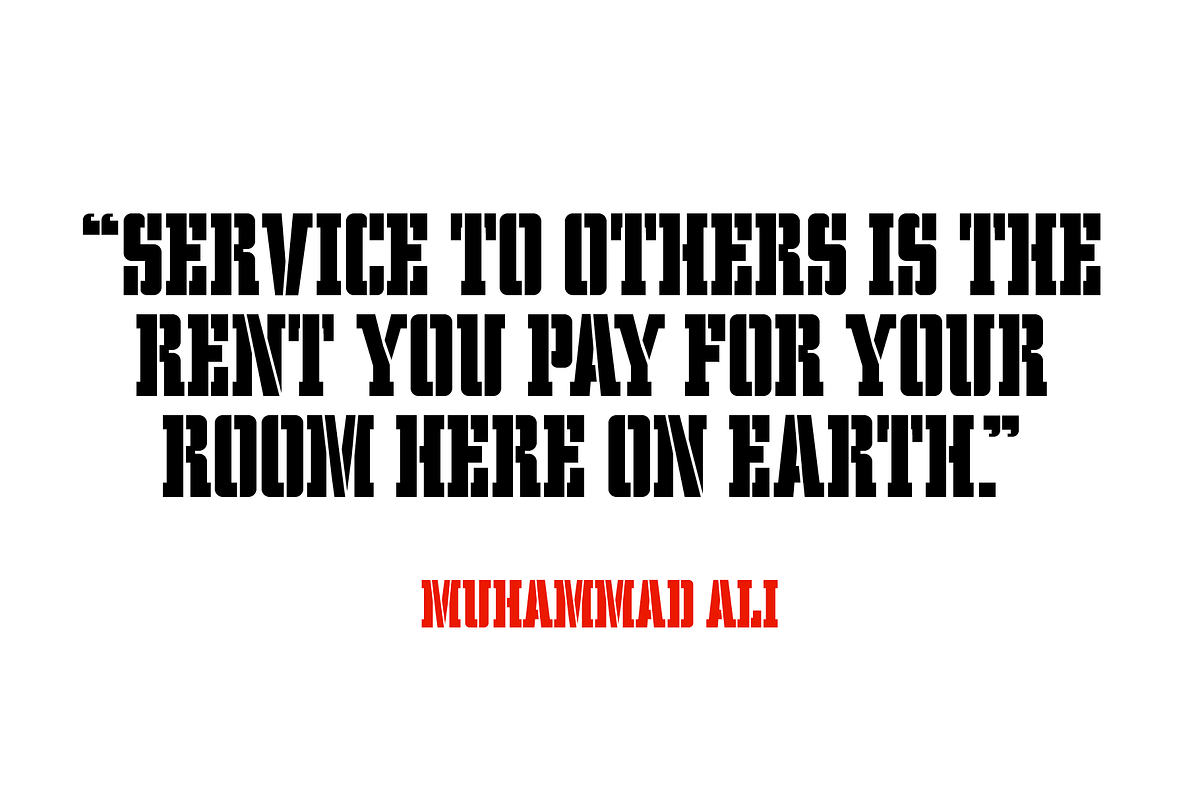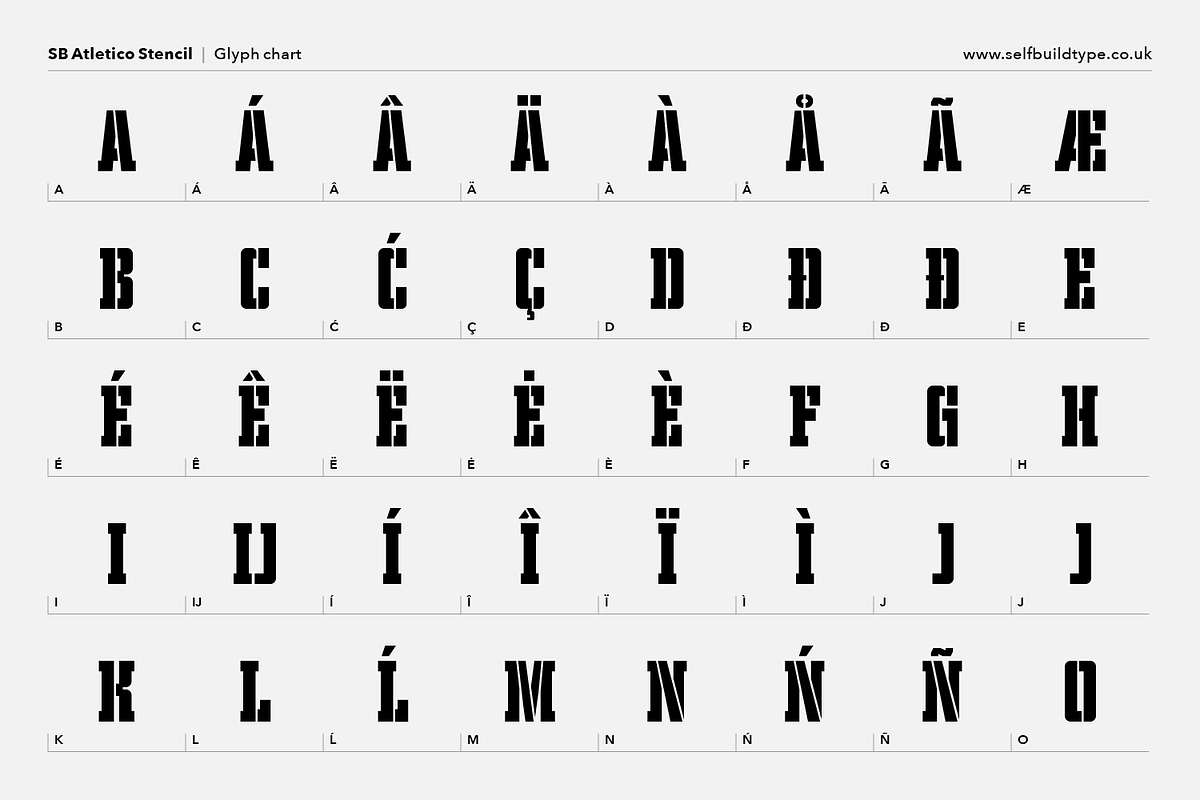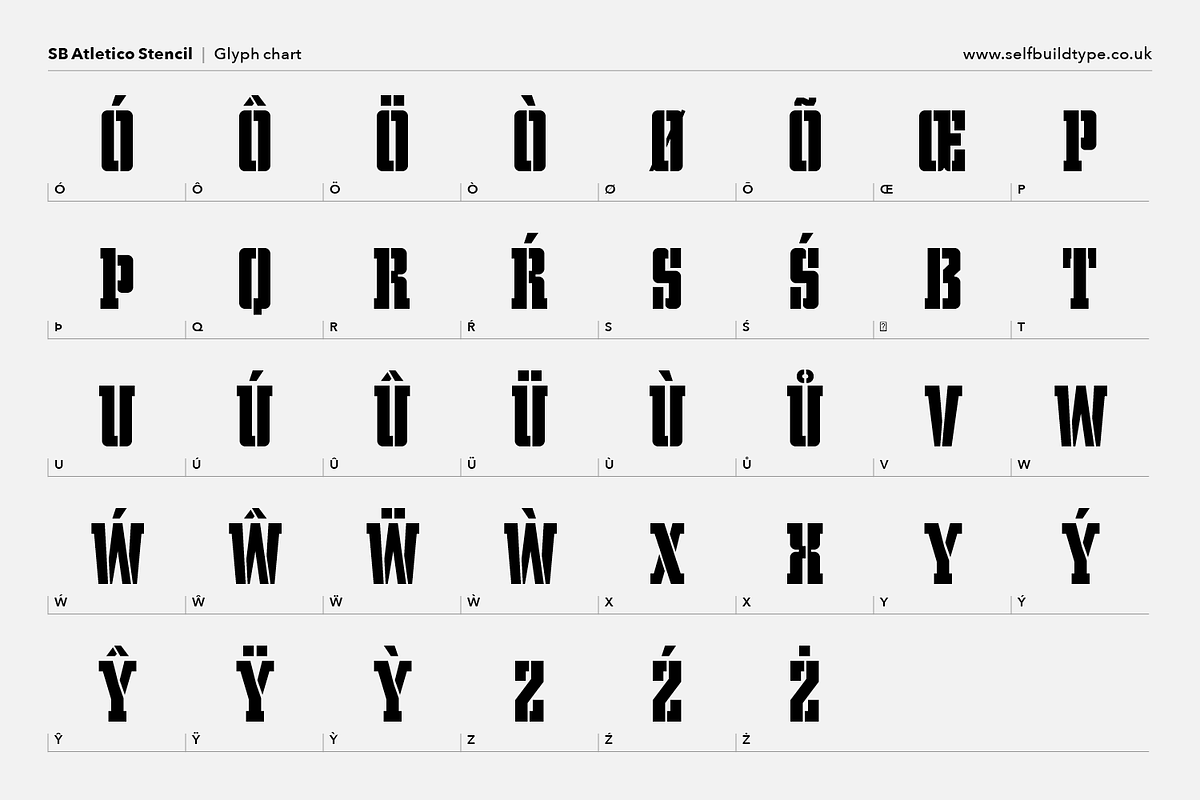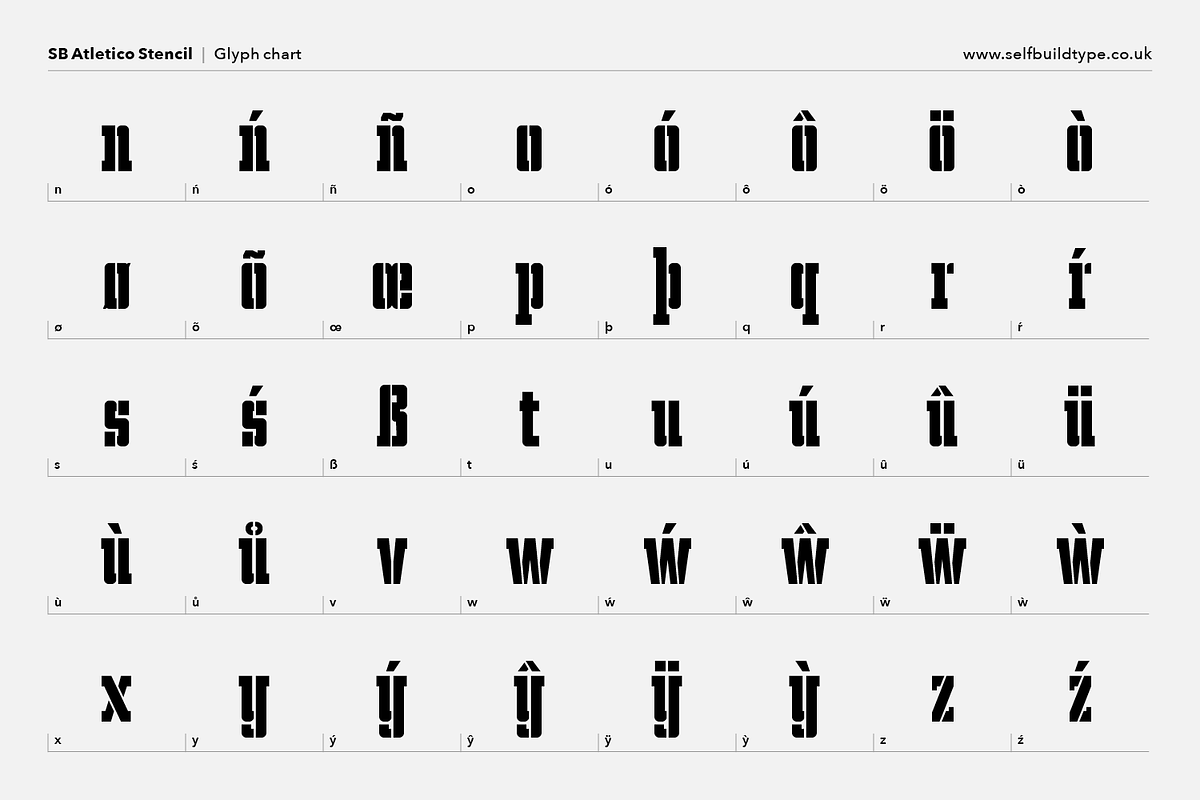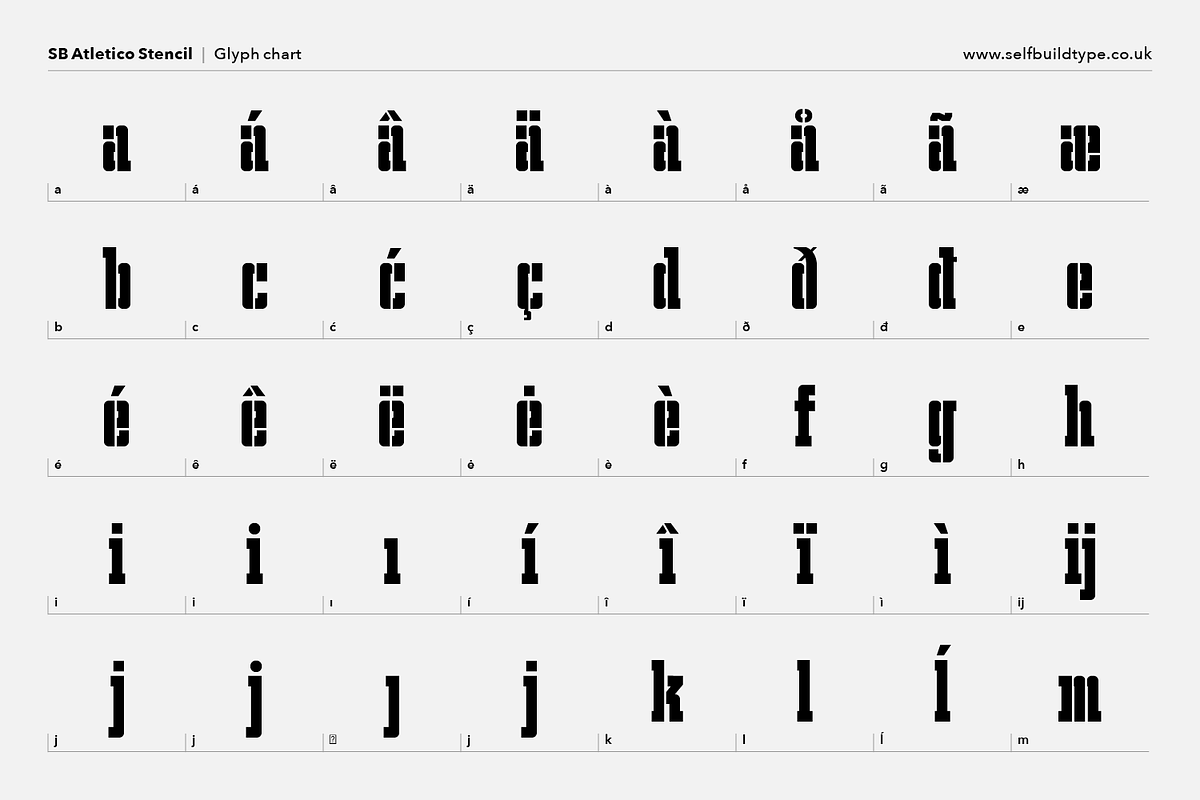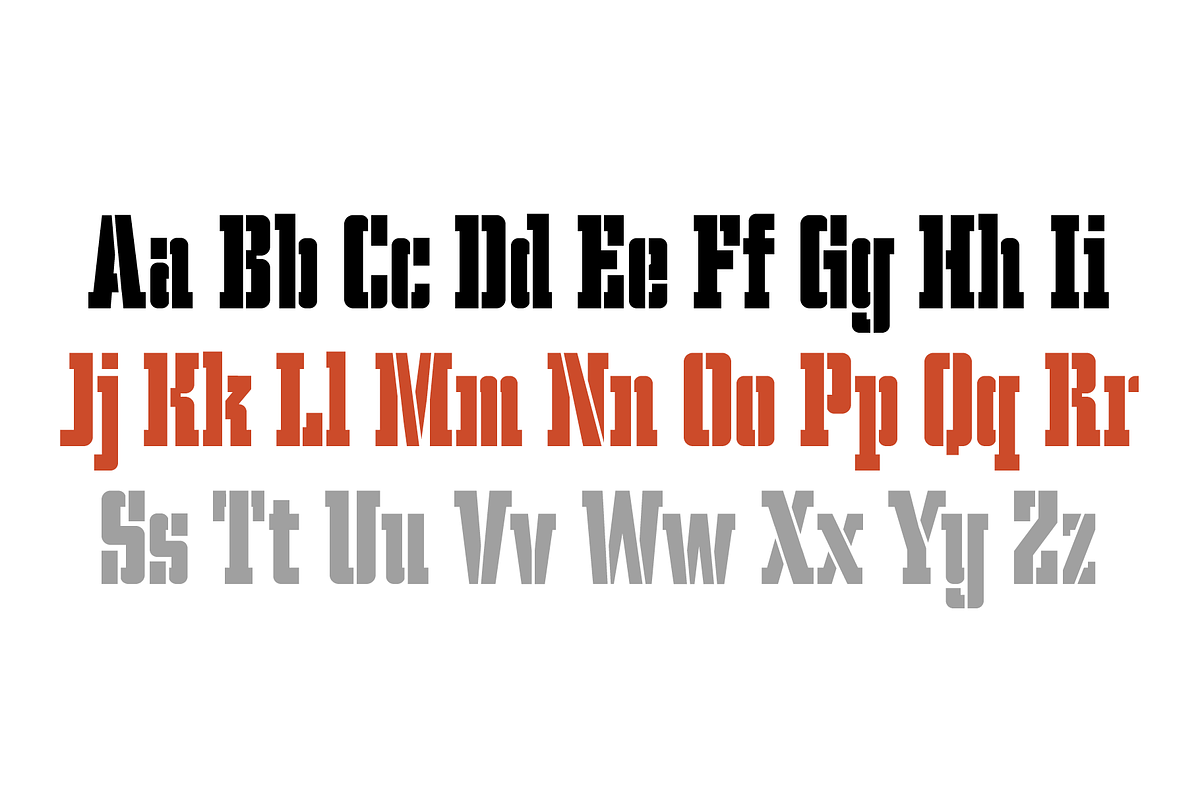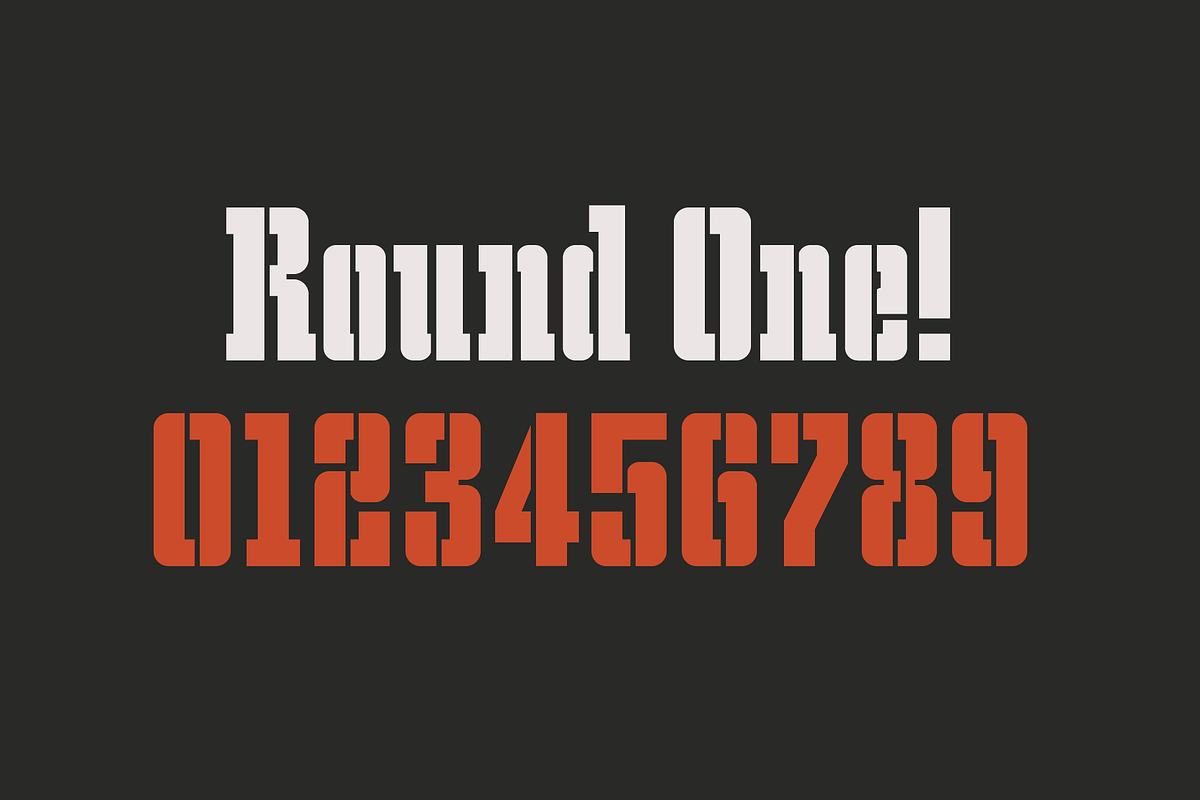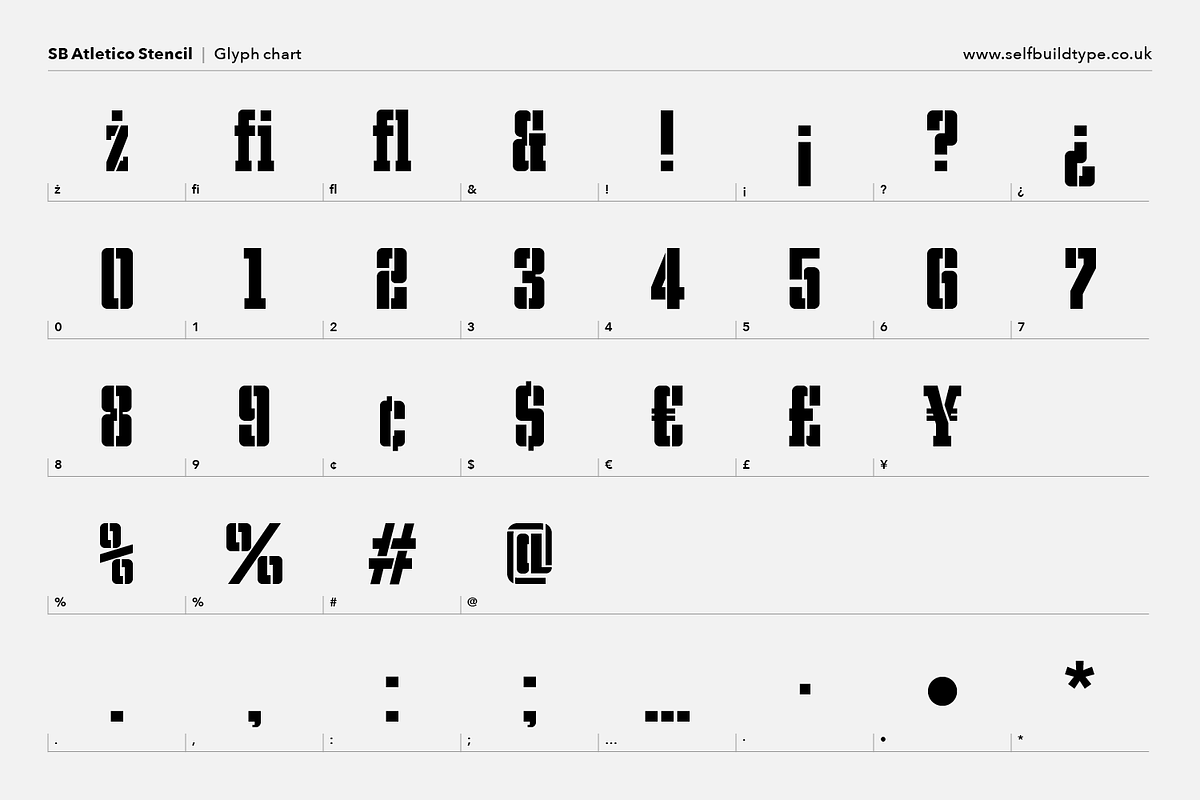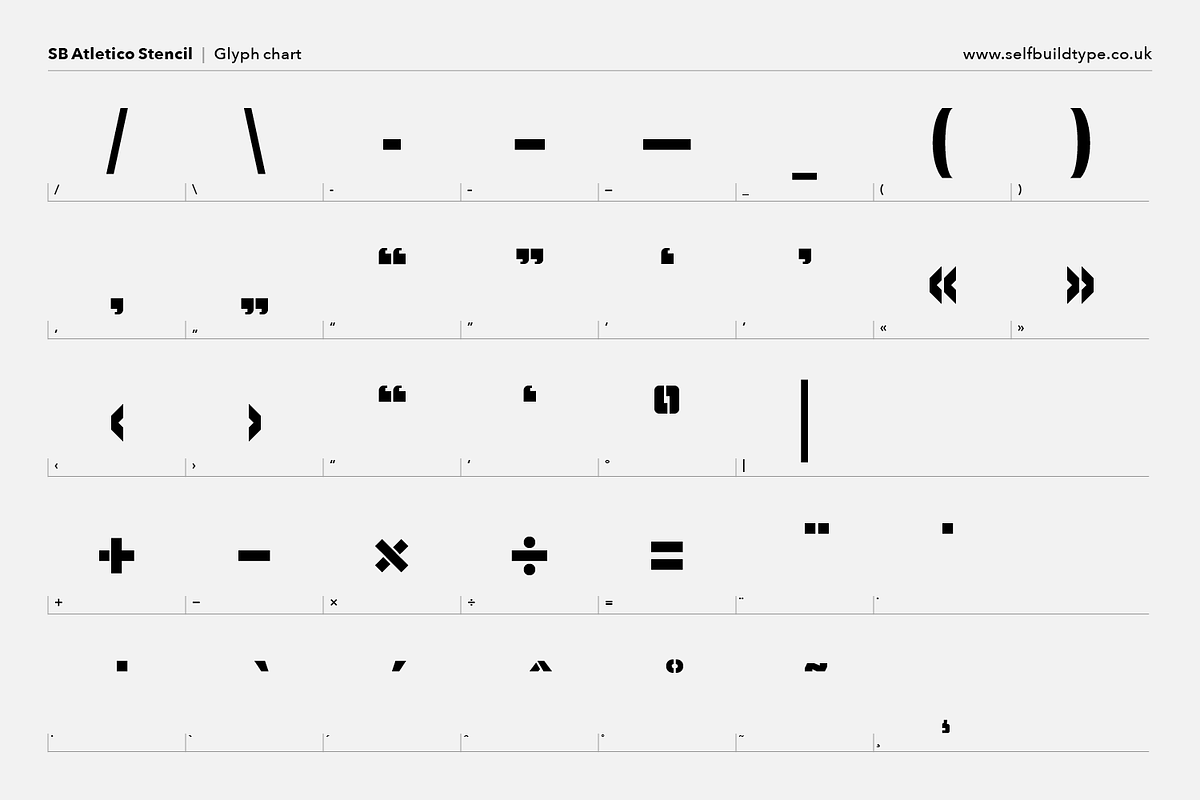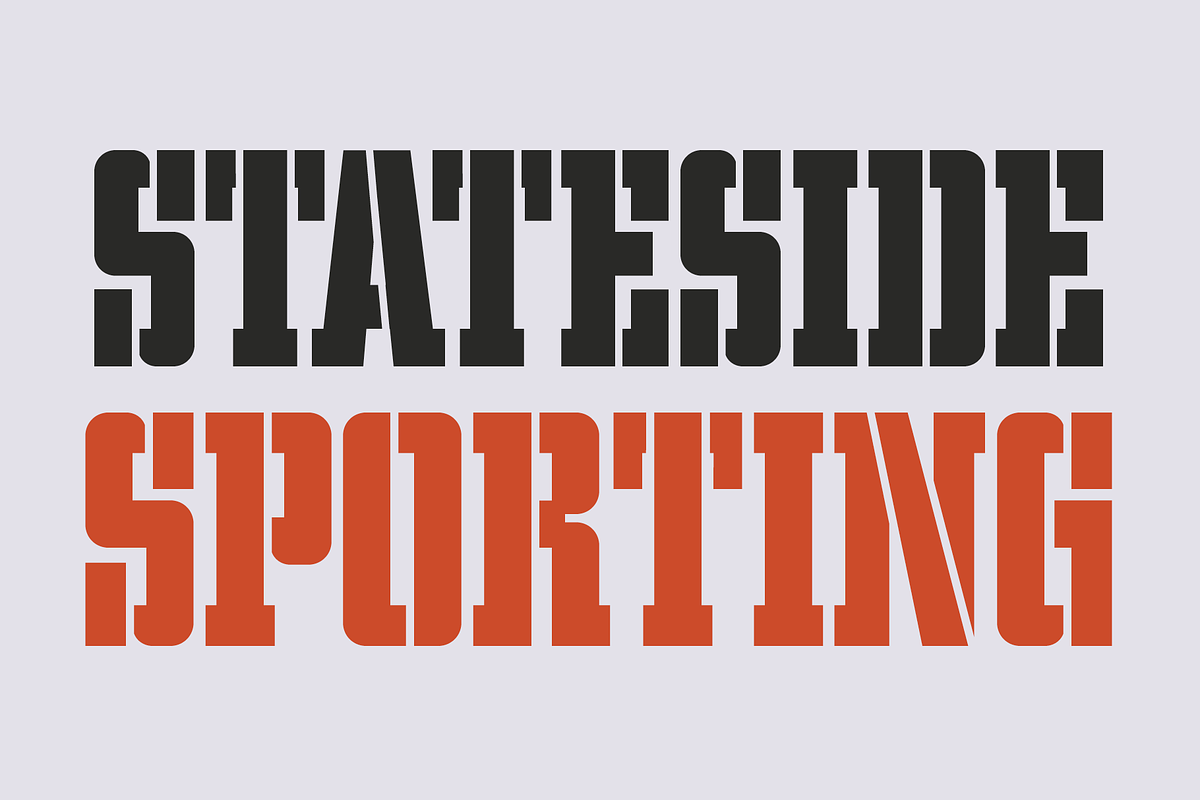
Atletico - Stencil font
SB Atletico Stencil is a bold slab serif stencil font designed to be used as a high impact display font. It is well suited to sports events, posters and editorial work.